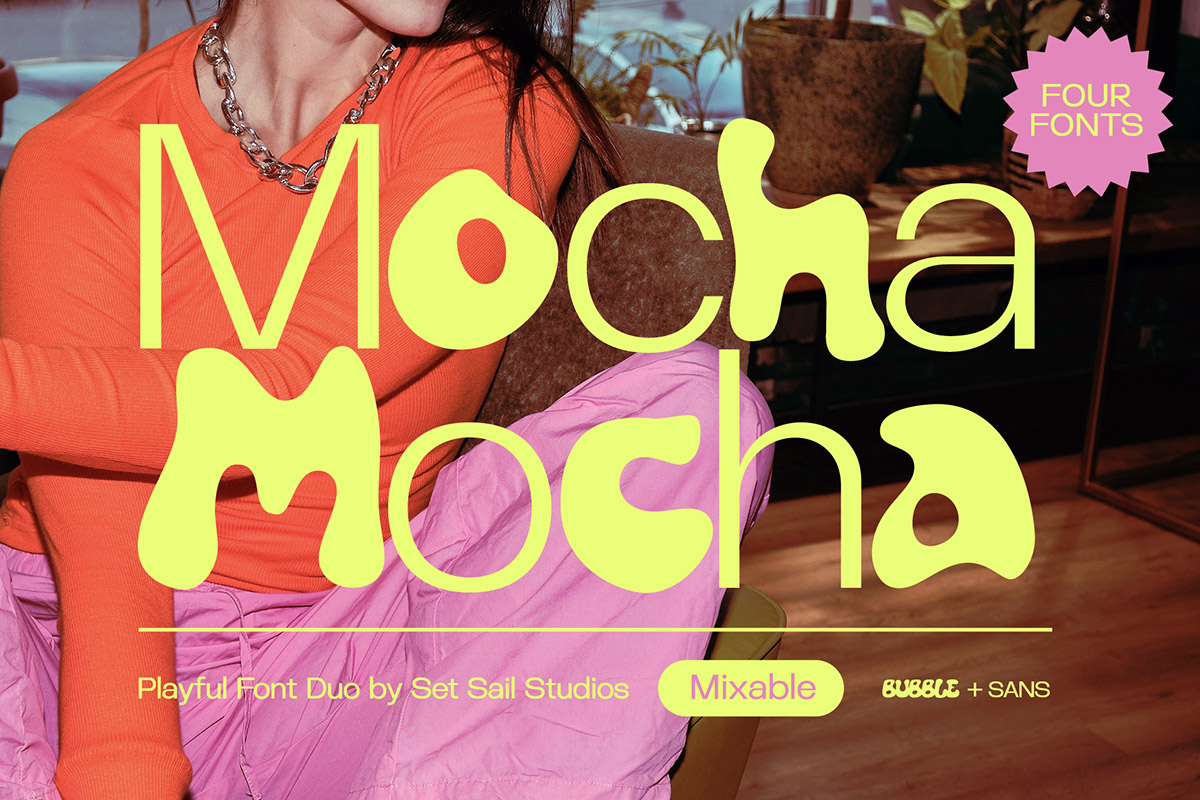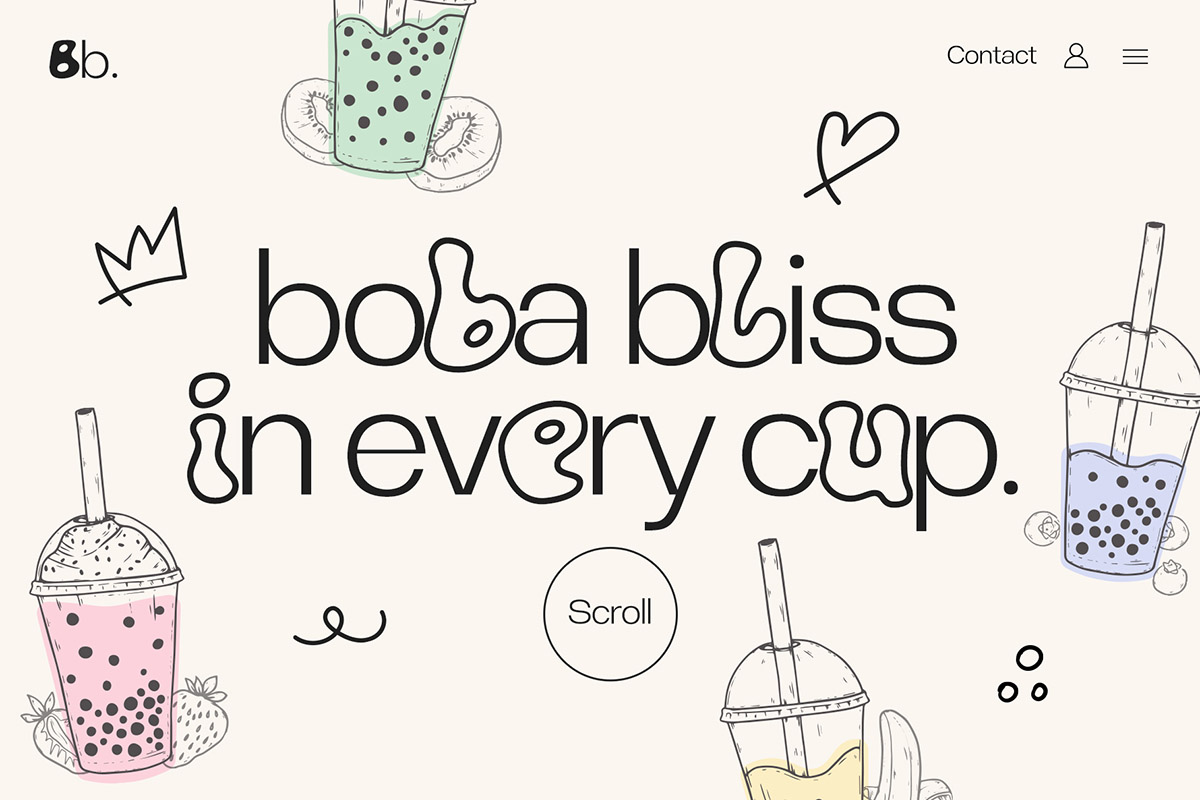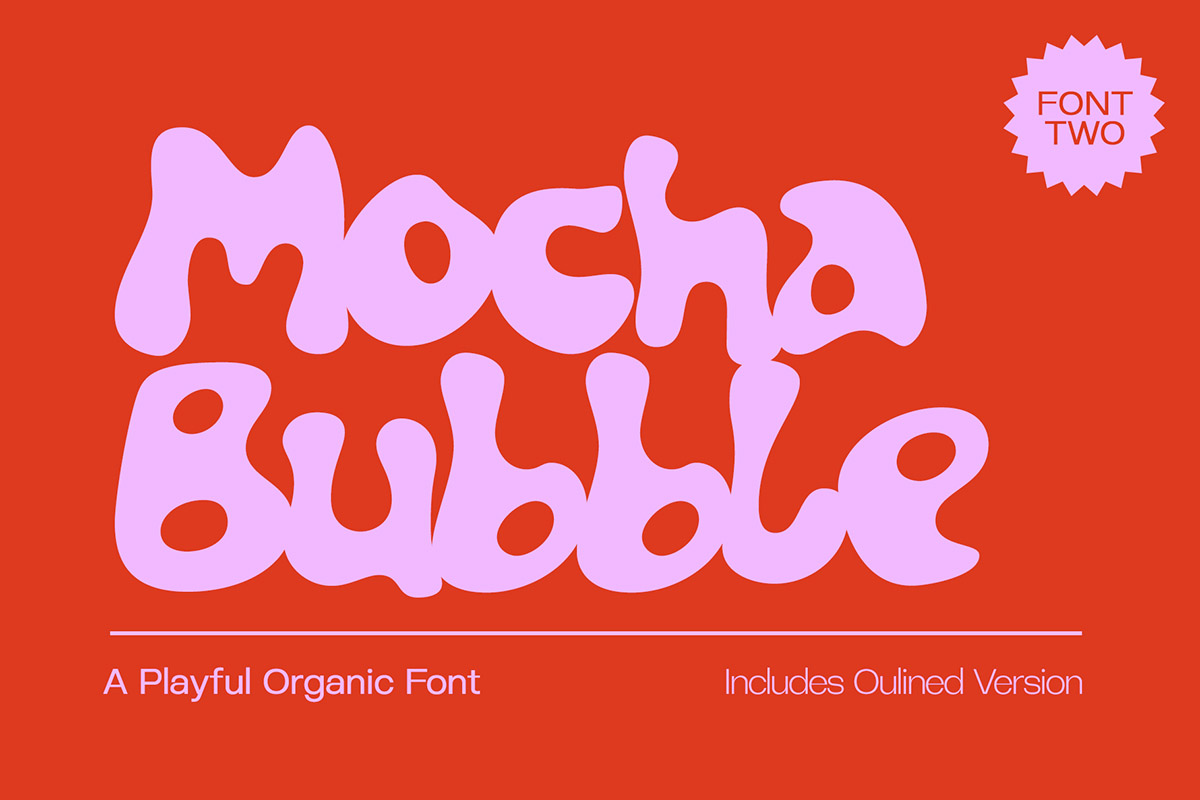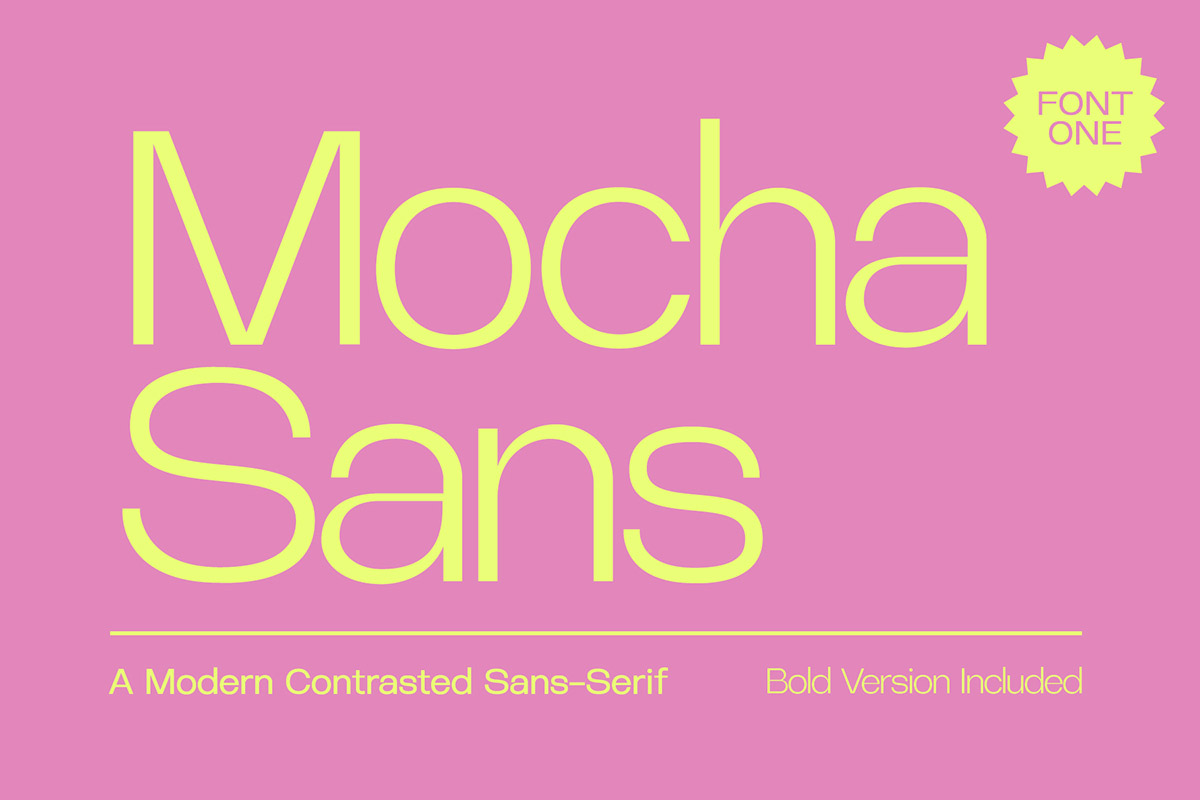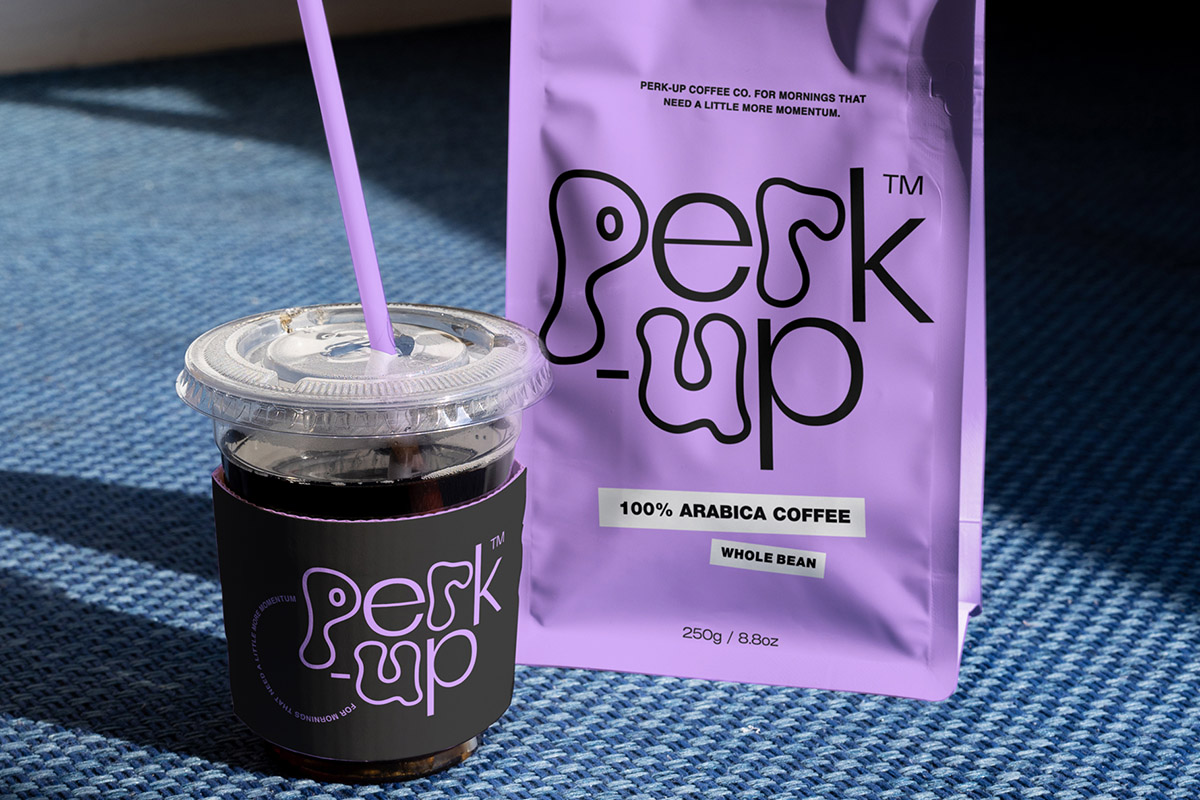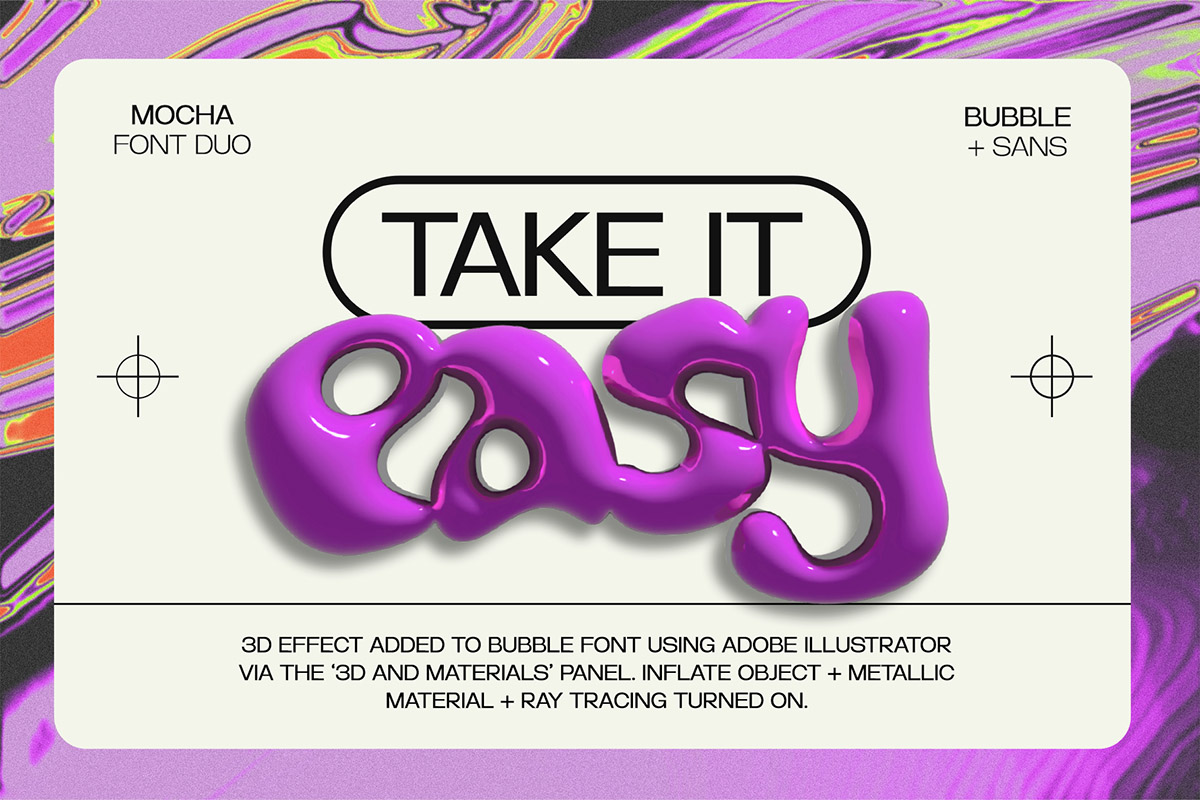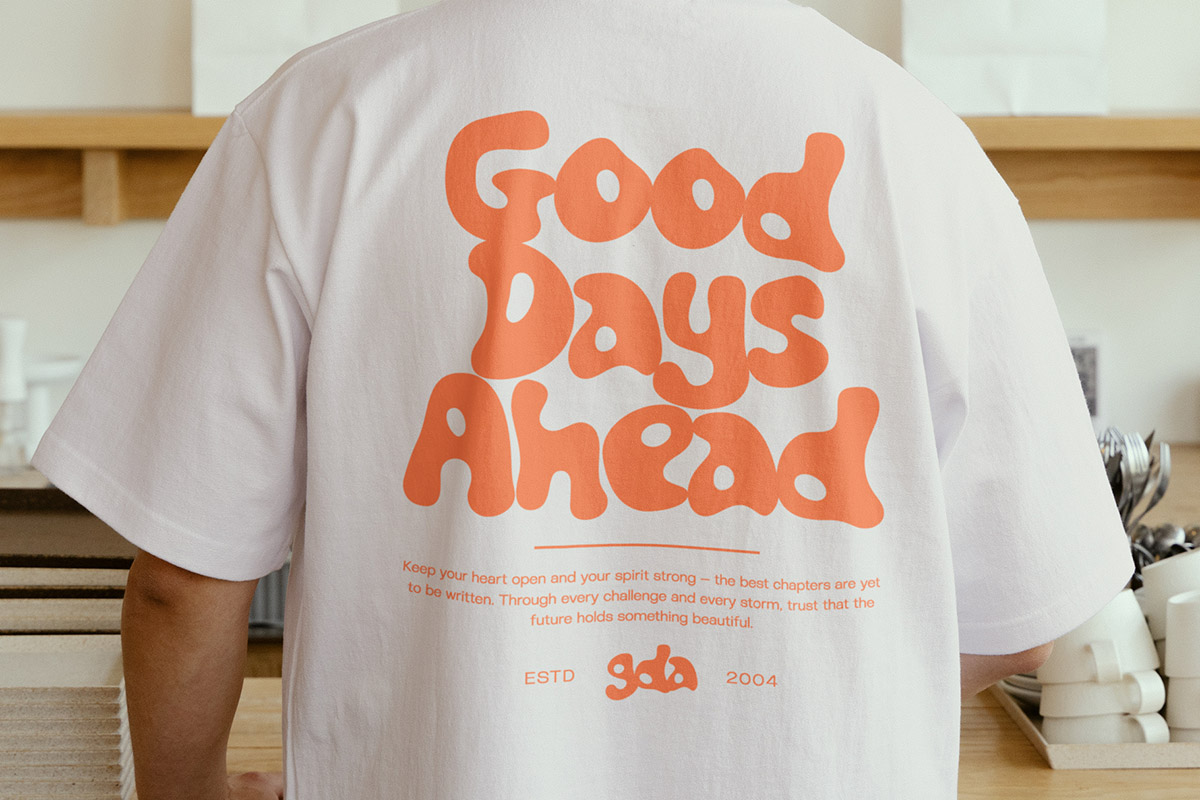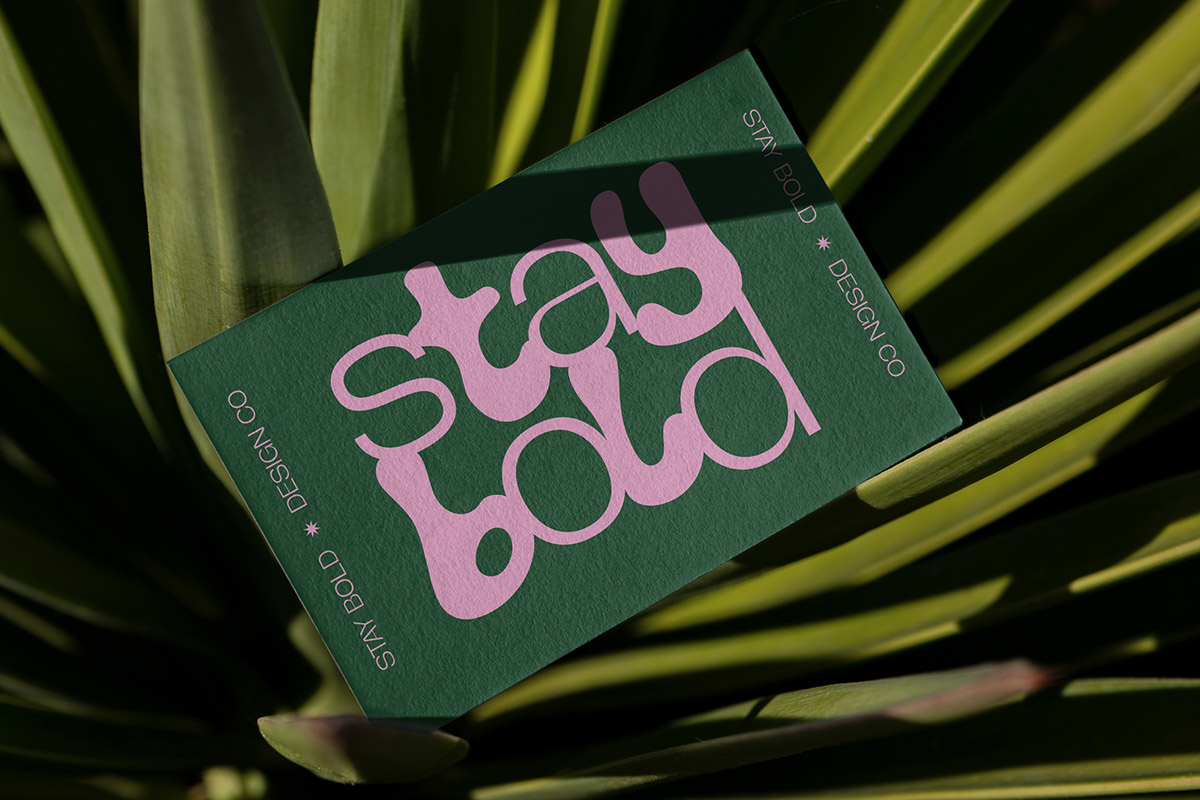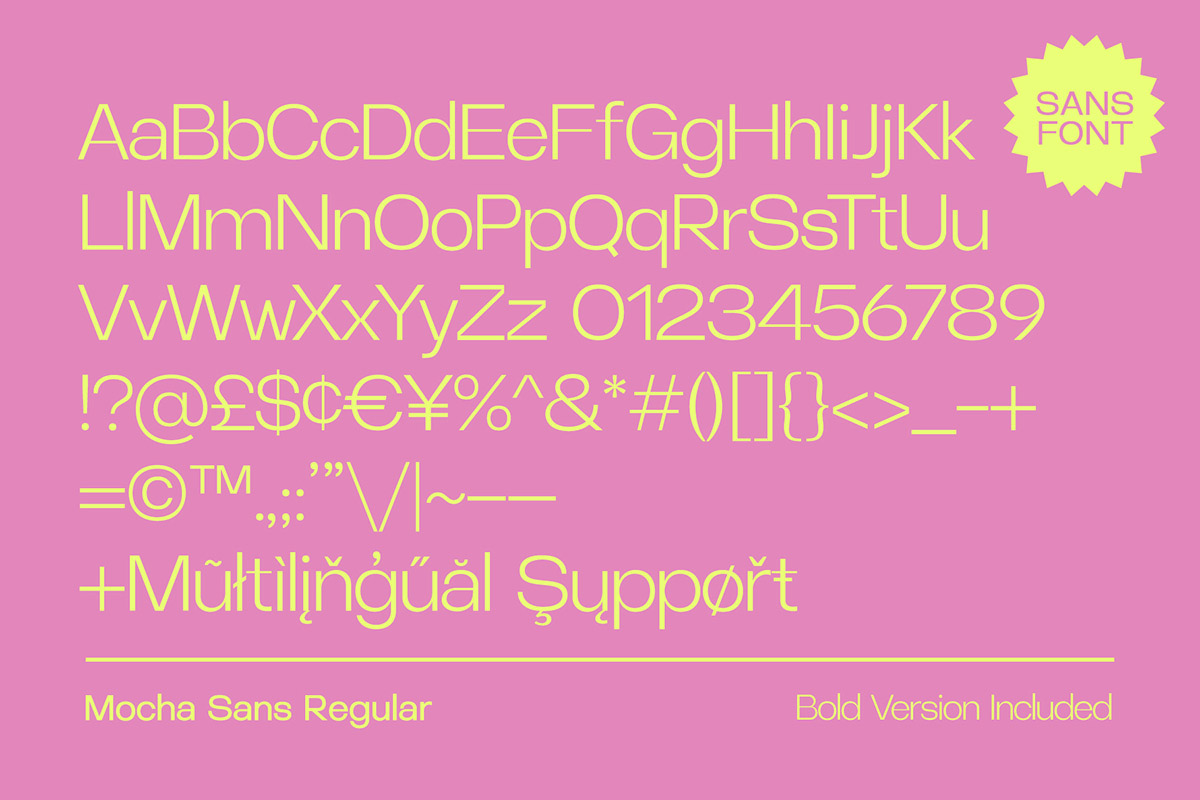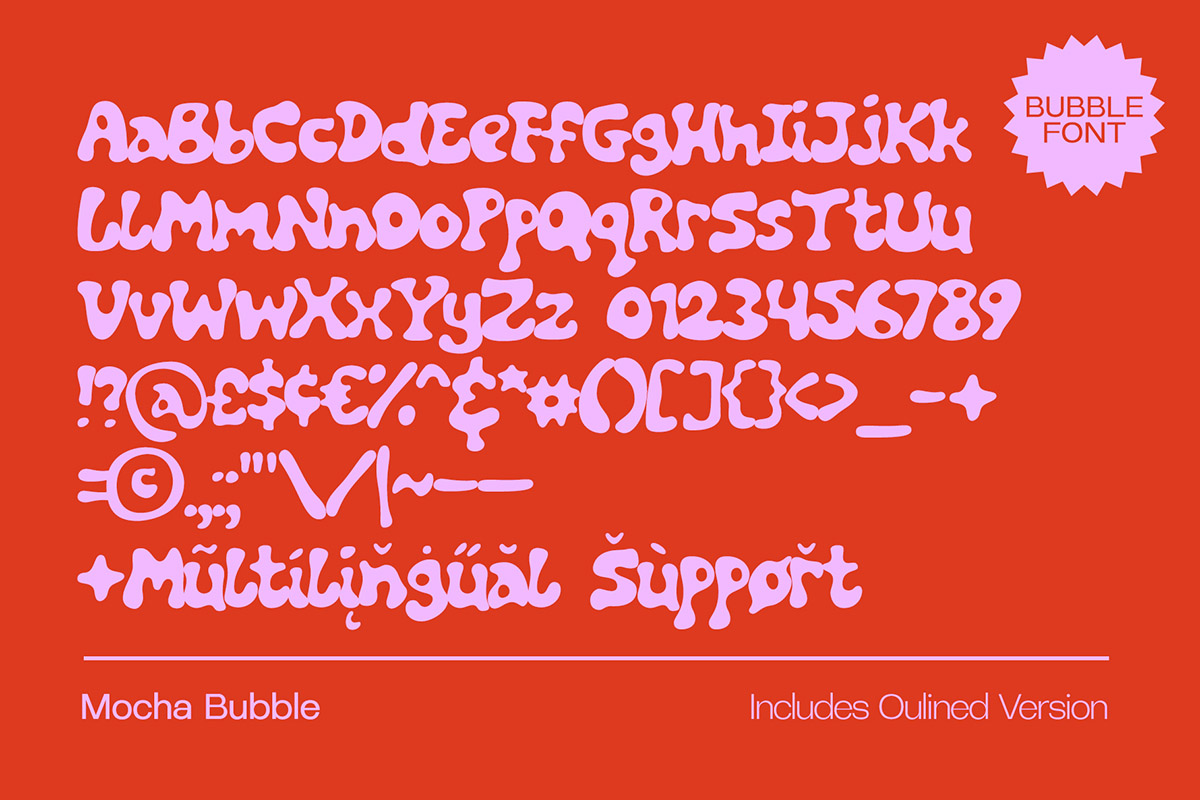
Introducing the Mocha Font Duo! This super playful pairing of Bubble and Sans fonts is ready to bring some modern, trendy and fun typography to your design project. These fonts have been carefully designed to perfectly compliment each other – contrasting in weight yet similar in height & width. Each font is fully fleshed out and work great on their own – but the real fun starts when you mix them up! With the addition of bold and outlined versions, this 4 font set offers a huge range of playful possibilities whether they’re side-by-side or mixed up within the same word.
Mocha Sans • A modern and contemporary contrasted sans-serif font, including a full set of uppercase, lowercase & punctuation.
Mocha Sans Bold • A bold version of the Sans font – great for use at smaller sizes.
Mocha Bubble • A playful, organic hand-drawn bubble font with fluid forms. Includes a full set of uppercase, lowercase & punctuation.
Mocha Outline • An outlined version of the bubble font for an extra layout option. Pairs great with both the sans and the regular bubble version.